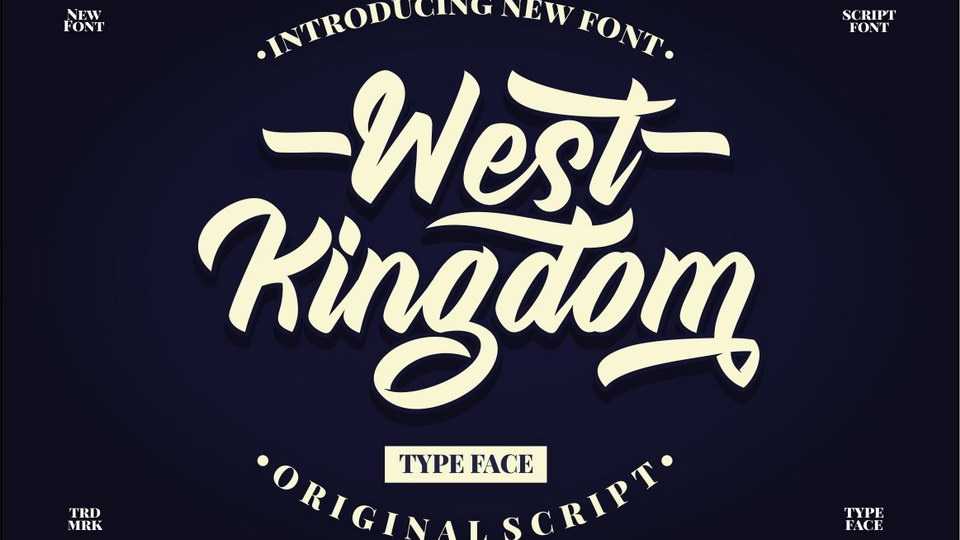
Download West Kingdom font, a modern script inspired by streetwear and combination hand lettering style. West Kingdomfont is ideal for logos, badge, label, apparel, club, event and more.